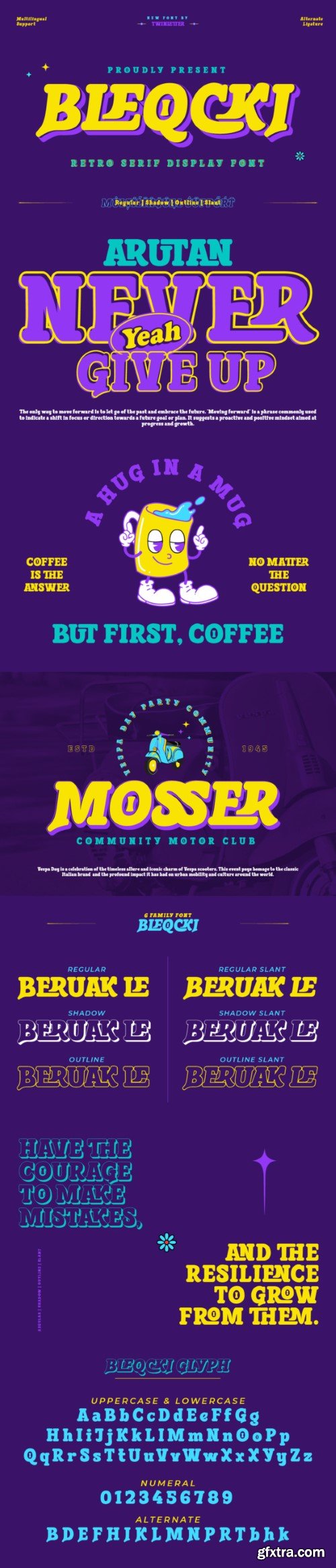
贝尔克基字体
Welcome to the nostalgic world of typography! Bleqcki is a retro serif display font that brings the strength and beauty of a classic look to your projects. If you are looking for the perfect solution to bring a classic and vintage look to various visual branding design projects, then Bleqcki is an unmatched choice.
What makes Bleqcki so interesting? This font not only brings a strong classic feel but also comes with several features that allow you to express your creativity. With families that include regular, shadow, outline, and slant, as well as alternate ligatures and characters. You have various options to create a look that suits your brand identity.